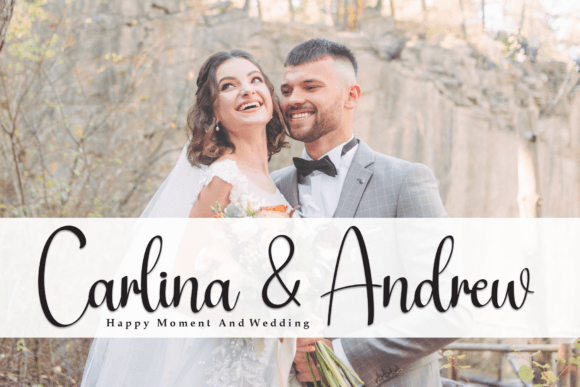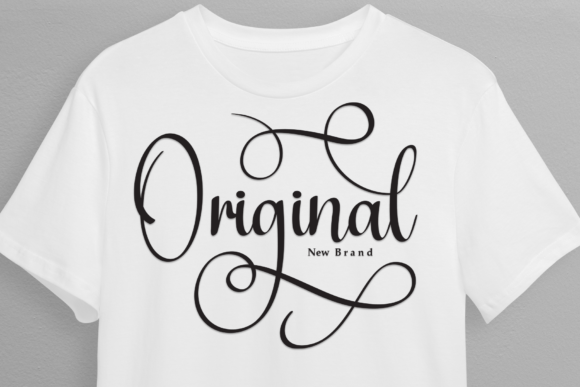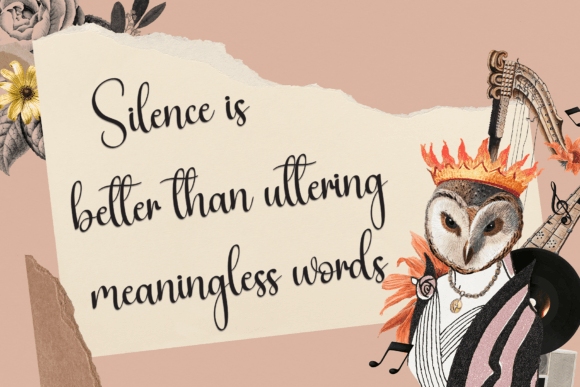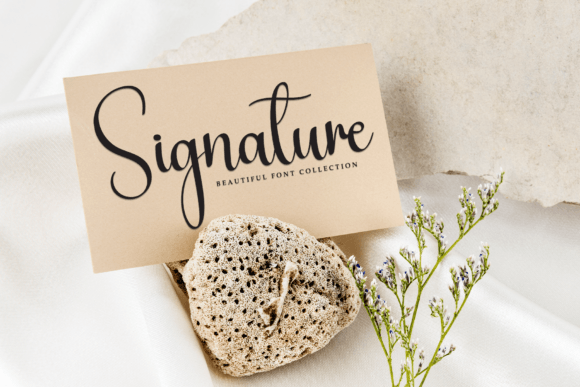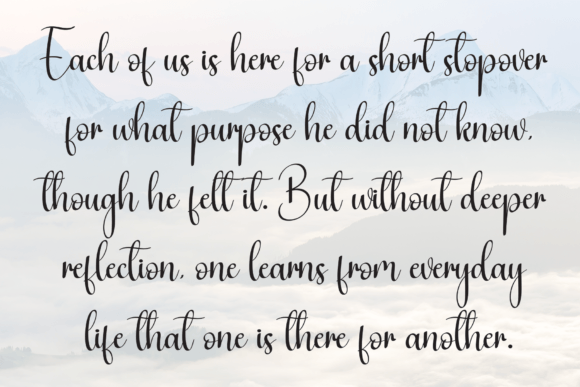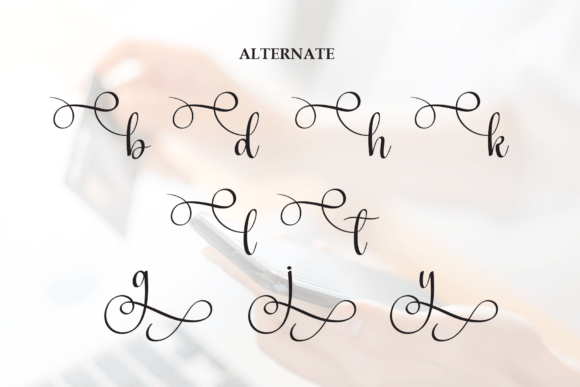
Introduction to Payment Font
Imagine you’re working on a creative project, and you’re struggling to find the perfect font to capture the essence of your design. You browse through hundreds of options, but nothing seems to fit. That’s when you stumble upon a game-changer – the Payment Font. This gorgeous and bold handwritten font is crafted to give your headlines and logotype projects a stylish touch, making it an invaluable resource for designers.
With its strong, confident, and dynamic feel, the Payment Font is perfect for designers who want to add a nostalgic character to their designs. Whether you’re working on a free download project or a high-quality design resource, this font is sure to elevate your work. Plus, its transparent background makes it easy to use in a variety of design scenarios.
Whether you’re a seasoned designer or just starting out, the Payment Font is a valuable addition to your design arsenal. So why settle for an ordinary font when you can have a Payment Font that adds a touch of sophistication and style to your creative projects?
Key Features of Payment Font
- Designed with precision and attention to detail, ensuring a crisp and clear display at high resolutions (up to 300 DPI).
- Unique characteristics include a modern, sleek aesthetic and a comprehensive character set, supporting multiple languages.
- Perfect for use in payment systems, e-commerce platforms, and other financial applications, where a professional and trustworthy image is essential.
Honest Review: Payment Font
I recently stumbled upon Payment Font, a free download that has been a game-changer for my creative projects. The first thing that caught my attention was its high-quality design, making it perfect for any professional-looking design.
The Payment Font features a transparent background, allowing for seamless integration with any background image or color. This flexibility makes it an ideal design resource for various creative projects.
Here’s what I like about Payment Font:
- ✨ Great for creating professional-looking payment forms and invoices
- ✨ Easy to customize and edit
- ✨ High-quality design that’s perfect for various creative projects
- ⚠️ Limited character sets and languages supported
- ⚠️ Not ideal for complex layouts or designs
Overall, I’m impressed with Payment Font’s performance and versatility. While it may not be perfect for every project, it’s an excellent design resource for simple payment forms and invoices. If you’re looking for a high-quality font for your creative project, I’d definitely recommend giving Payment Font a try.
Tips for Getting the Most Out of Payment Font
Payment Font is a high-quality design resource that can elevate your creative project. To get the most out of it, consider the following tips:
– Use it on a transparent background to create a sleek and modern look.
– Experiment with different font sizes and styles to add visual interest.
– Pair it with other design elements to create a cohesive look.
Payment Font is a versatile design resource that can be used in a variety of creative projects, including:
– Financial and banking designs
– E-commerce websites and apps
– Marketing materials and brochures
– Graphic design projects and more.